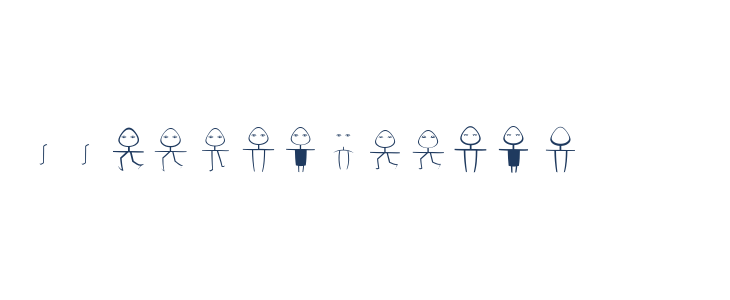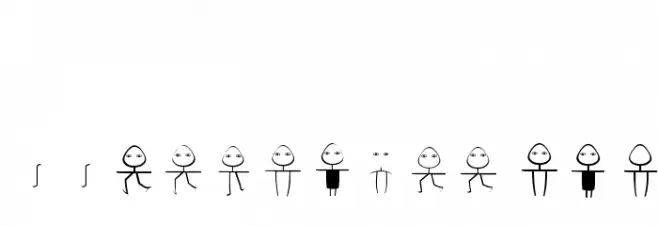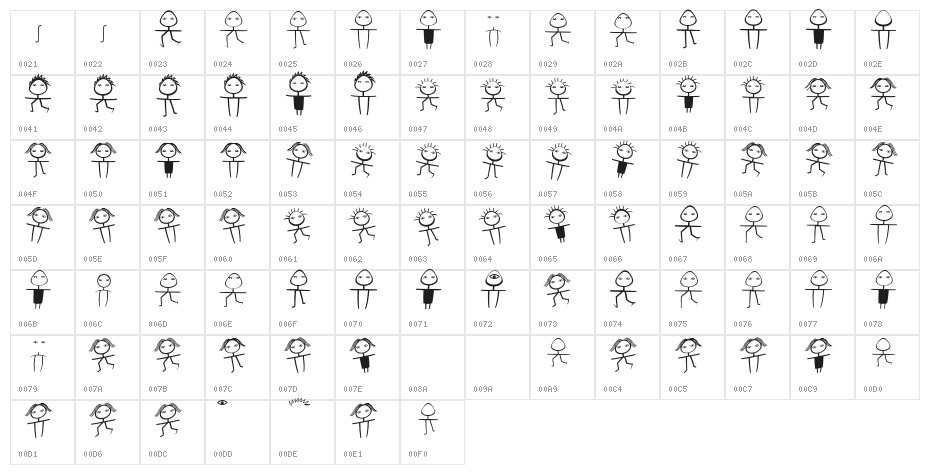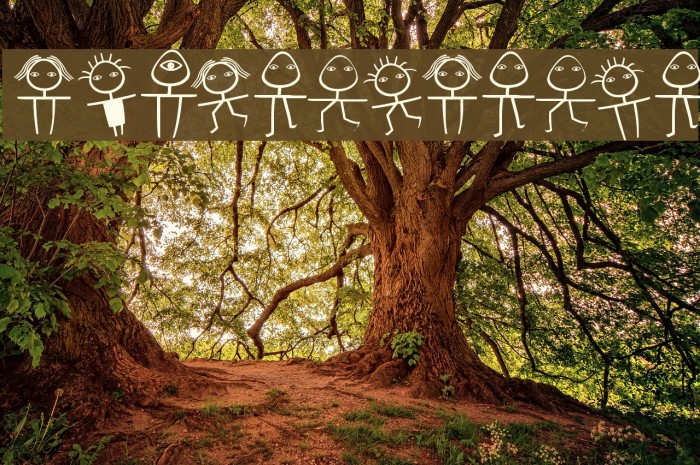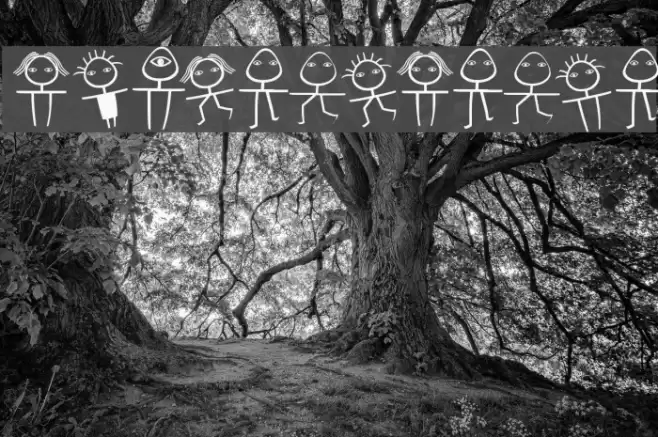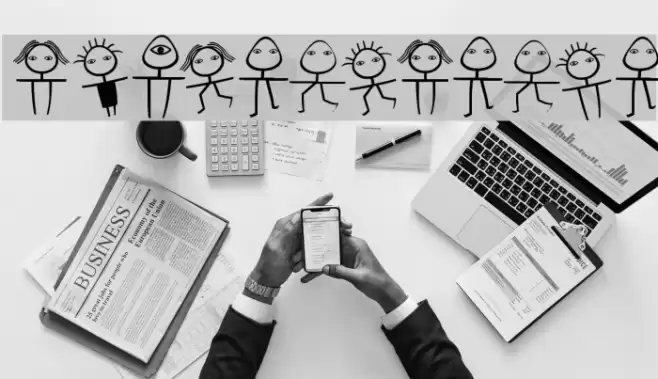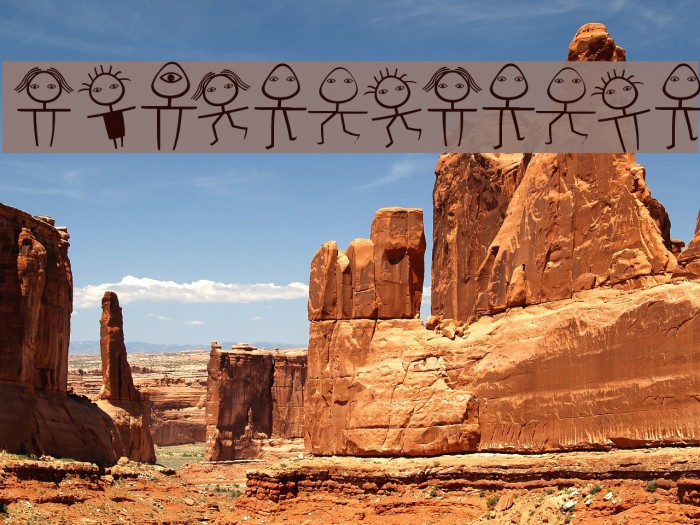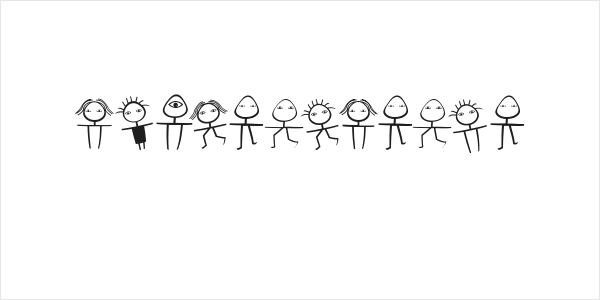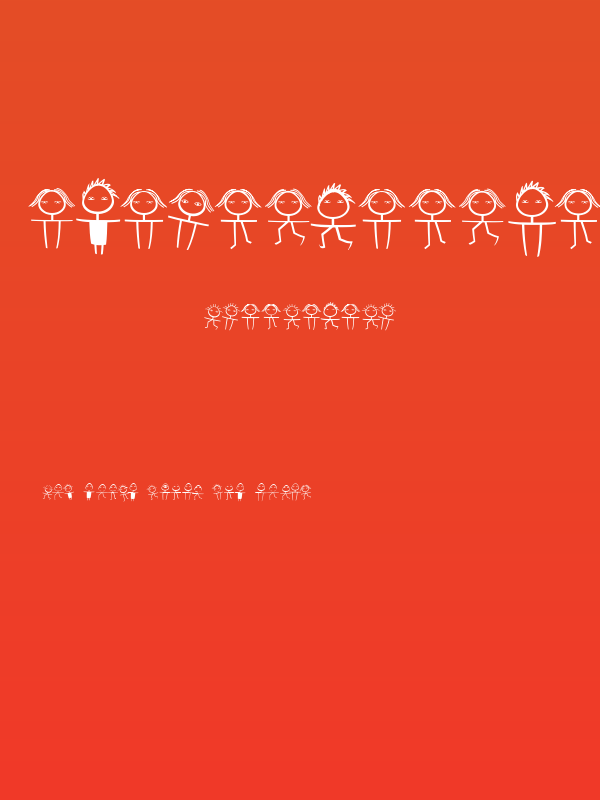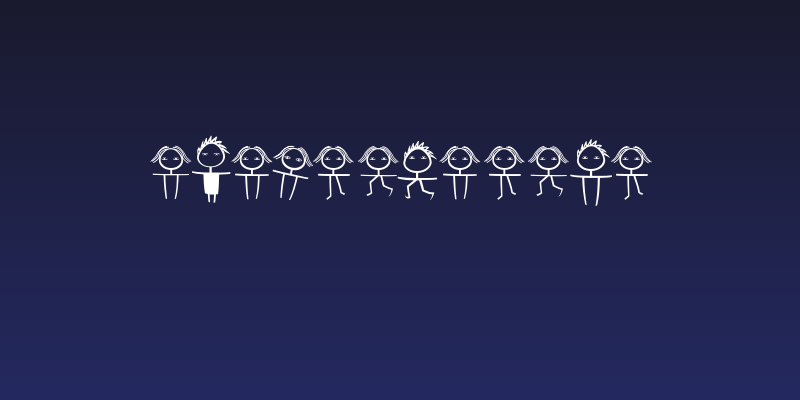
PersonaRondo Font
PersonaRondo Description
A whimsical, hand-drawn font where each character is represented by a playful stick-figure person with unique facial expressions and hairstyles, giving a lively and animated appearance.
| Overall Style | Whimsical, Playful, Hand-drawn |
| Use Case | Display, Titles, Posters, Creative Projects |
| Proposed Projects | ChildrenΓ’β¬β’s books, playful posters, greeting cards, educational materials, creative branding. |